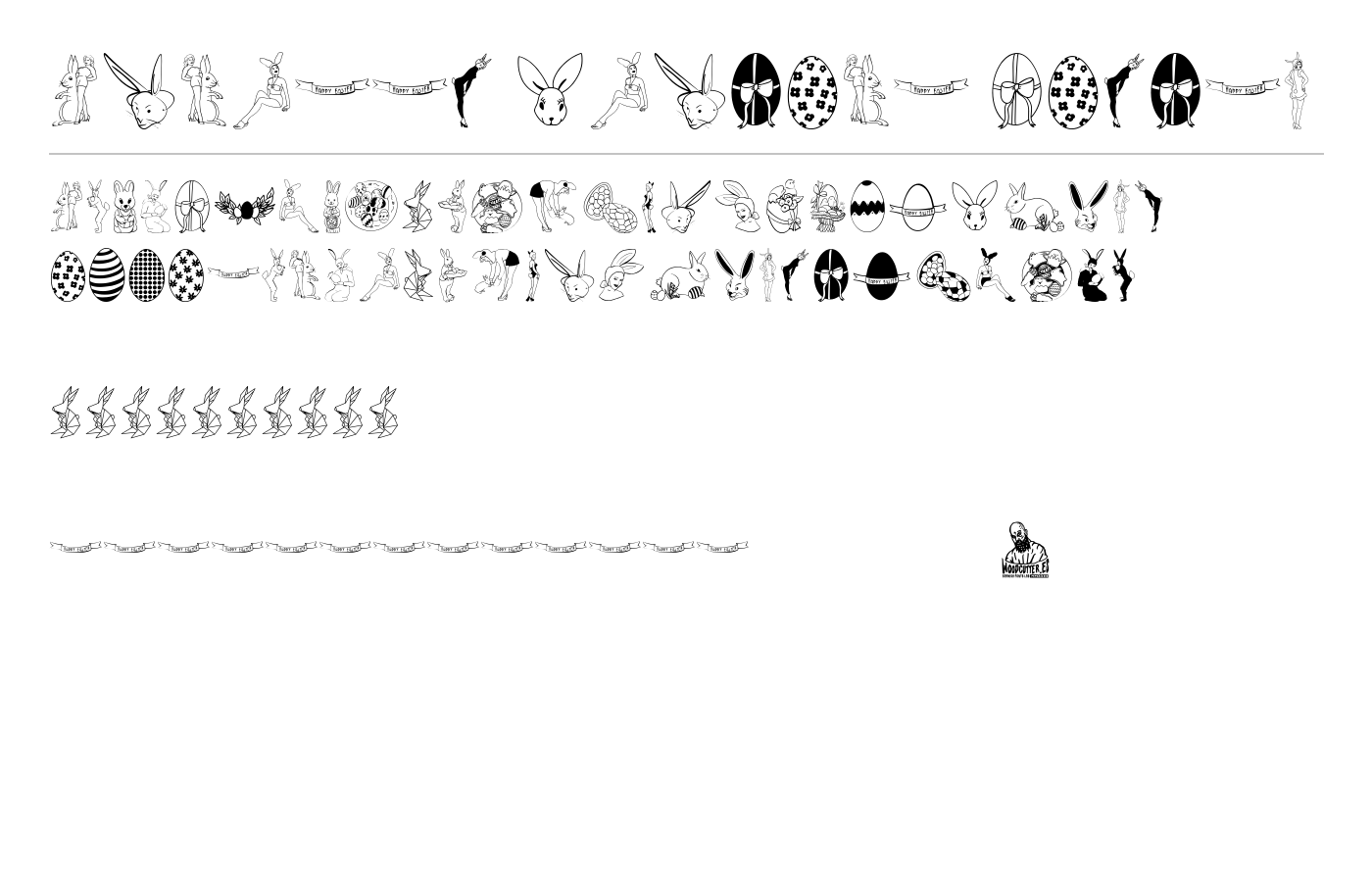
Angie's Vintage Easter Font is a playful decorative font featuring charming vintage-style Easter-themed illustrations instead of traditional letterforms. With detailed line art of bunnies, eggs, and festive elements, it captures a nostalgic and whimsical mood perfect for seasonal designs. This font works best for holiday cards, invitations, packaging, and promotional materials that seek a fun, retro Easter vibe that delights both adults and children.
Angie's Vintage Easter Font
About Angie's Vintage Easter Font